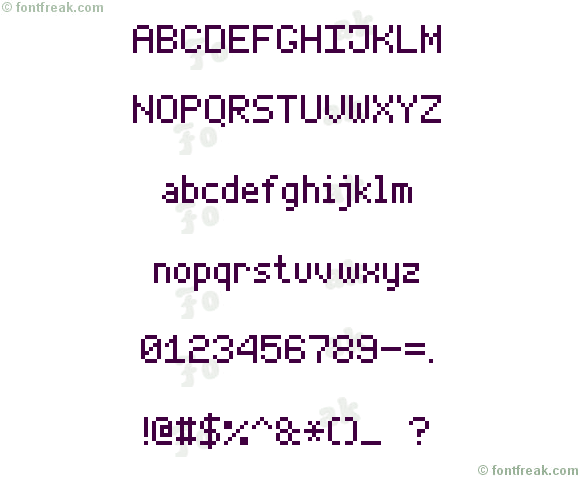
Thin Pixel-7
Thin Pixel-7 is a unique display font that captures the essence of retro digital aesthetics, making it an excellent choice for projects that need a modern yet nostalgic touch. This font features a pixelated design with a thin stroke weight, giving it a clean and minimalist appearance. Its uniform spacing enhances readability while maintaining a playful character, ideal for projects that want to evoke a sense of technology or nostalgia.
This font is versatile and can be applied in various contexts. It works wonderfully for video game-themed designs, capturing the retro vibe that resonates with gamers. Thin Pixel-7 is also perfect for tech startup branding, where a modern, clean look is desired. Additionally, it can elevate social media graphics, making them stand out with its distinctive pixelation. Event posters, particularly for tech conferences or gaming events, can also benefit from the engaging and eye-catching qualities of this font.
The target audience for Thin Pixel-7 includes graphic designers looking for a unique display typeface, small business owners seeking to create memorable branding, and content creators who want to add a playful element to their digital projects.
What sets the Thin Pixel-7 font apart is its ability to blend nostalgia with modern design sensibilities. Its pixelated form is reminiscent of early digital displays while remaining fresh and relevant for contemporary use. With its freeware license, it’s accessible for anyone looking to enhance their creative projects without breaking the bank. Don’t miss the opportunity to incorporate this distinctive typeface into your designs—Thin Pixel-7 font free download is just a click away, making it easy to add a touch of retro charm to your work.